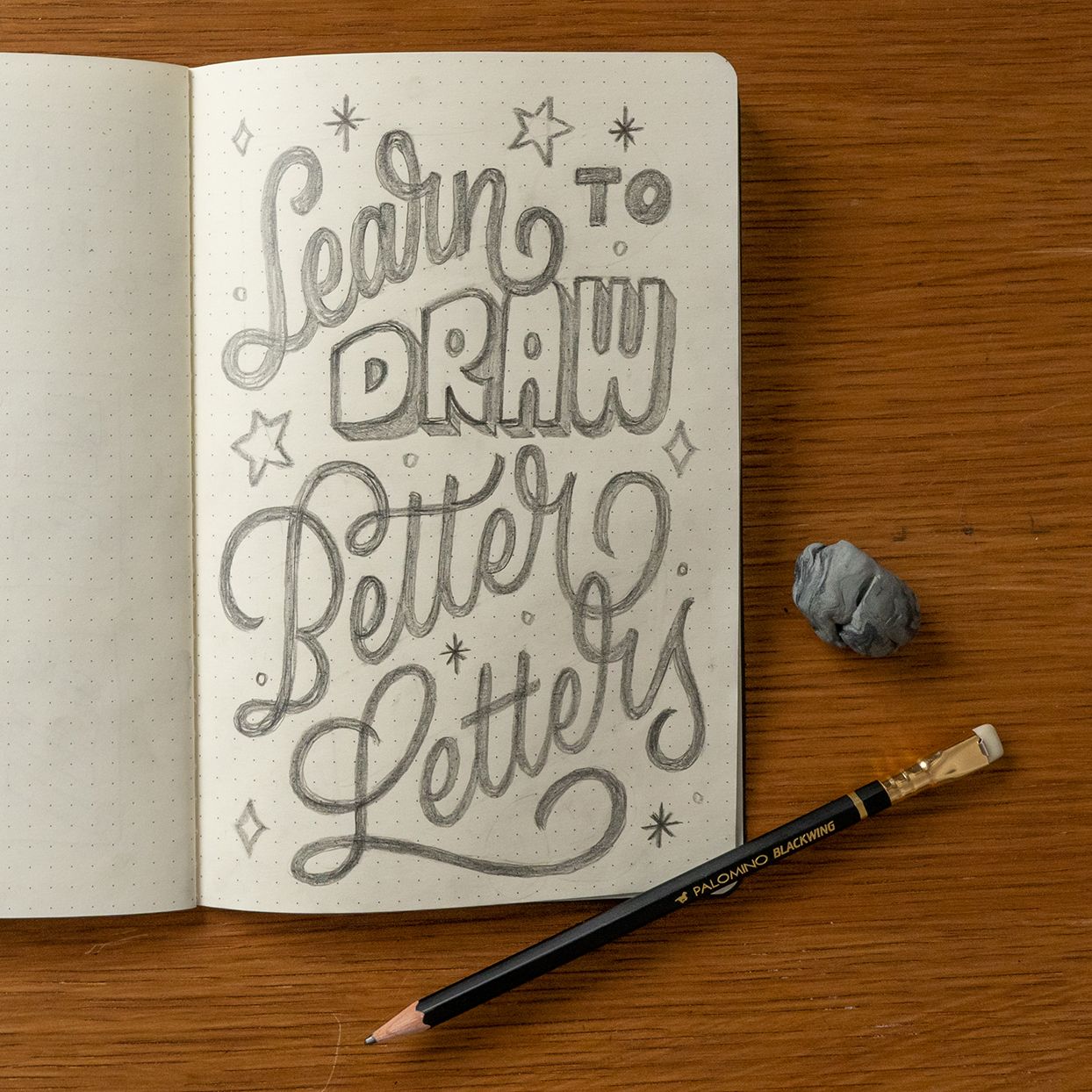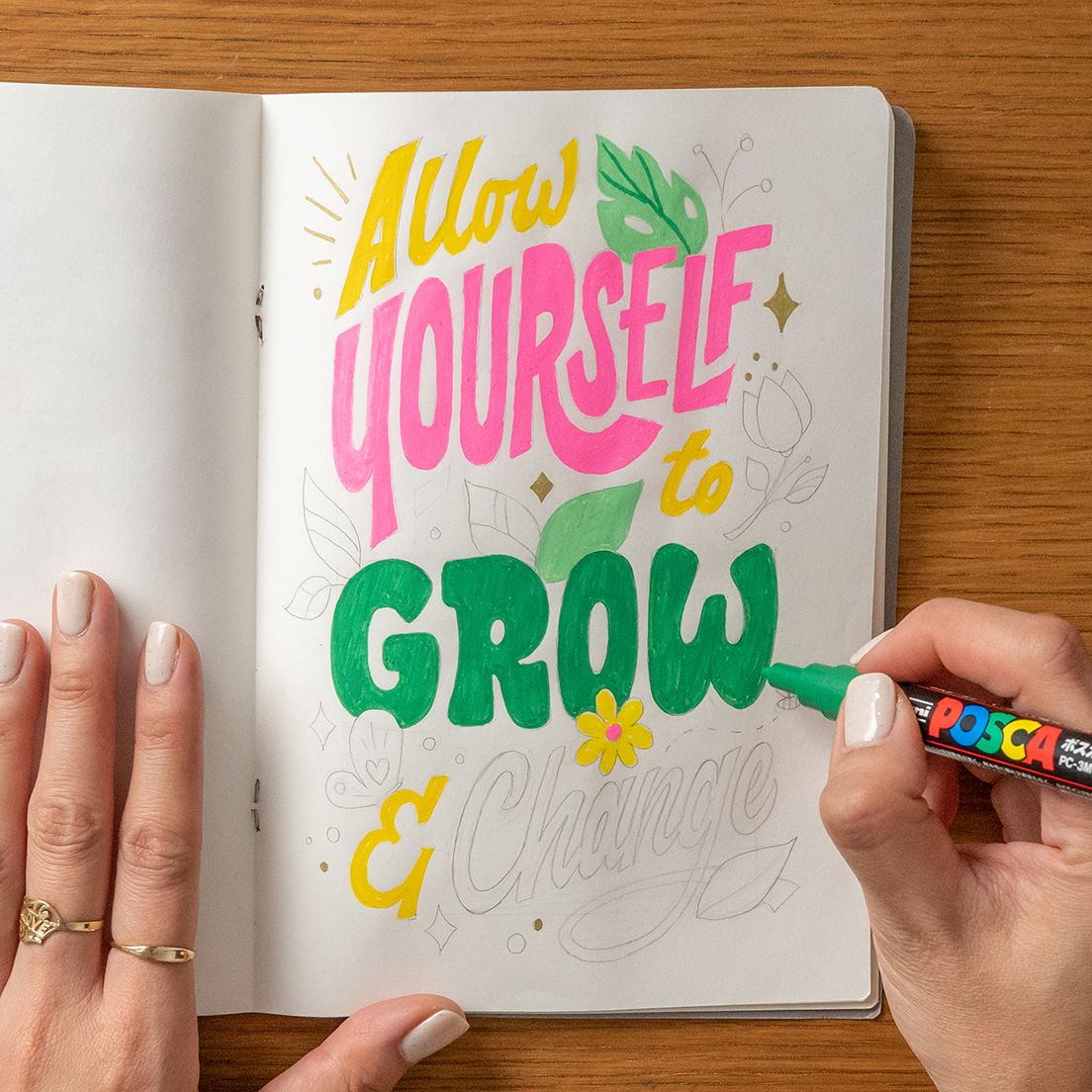
Abschlussprojekt – Typografie-Skizzenbuch: Buchstaben mit Stil zeichnen
Final Project – Typography Sketchbook: Drawing Letters with Style
von Joanna Muñoz @winkandwonder
Ihr habt meinen kreativen Prozess während des Kurses gesehen (Richtlinien verwenden, Gewicht hinzufügen usw.). Hier sind nun die fertigen Skizzen!
Du musst deine Stücke für dein Abschlussprojekt nicht unbedingt einfärben oder ausmalen, aber ich empfehle dir, es auszuprobieren, wenn du Zeit hast. Vielleicht gefällt dir der Prozess ja am Ende. :)
Ich persönlich liebe Bleistiftskizzen – es fühlt sich wirklich handgemacht an, wenn man die Graphitstiftmarkierungen auf der Seite sehen kann.
You saw my creative process during the course (using guidelines, adding weight, etc.). Now here are the finalized sketches!
You don't have to ink or color your pieces for your final project, but I do suggest you try and experiment when you have time. You might end up loving the process. :)
I personally love pencil sketches – it really feels handmade when you can see the graphite pencil markings on the page.
Eine der wichtigsten Aufgaben eines Lettering-Künstlers besteht darin, die eigene Arbeit zu kritisieren.
Im Nachhinein hätte ich die Linienstärke in „Better Letters“ dicker machen sollen, damit sie zu „Learn“ passt. Die obere Hälfte der Seite fühlt sich schwerer an als die untere, und der untere Text ist das, was wir ursprünglich hervorheben wollten!
Profi-Tipp: Wenn Sie etwas Abstand von Ihrem Stück gewinnen und die Augen zusammenkneifen, können Sie kleinere Details erkennen und anpassen.
Das Erfassen kleiner Details wie dieser wird Ihnen dabei helfen, Ihre Schriftzüge aufzuwerten. :)
One of the important things to do as a lettering artist is to critique your own work.
In hindsight, I should've thickened the line weight in "Better Letters" to match "Learn." The top half of the page feels heavier than the bottom, and the bottom text is what we initially wanted to stand out!
Protip: Stepping away from your piece and squinting your eyes can help you notice smaller details to adjust.
Catching little details like this are what will help you elevate your lettering pieces. :)
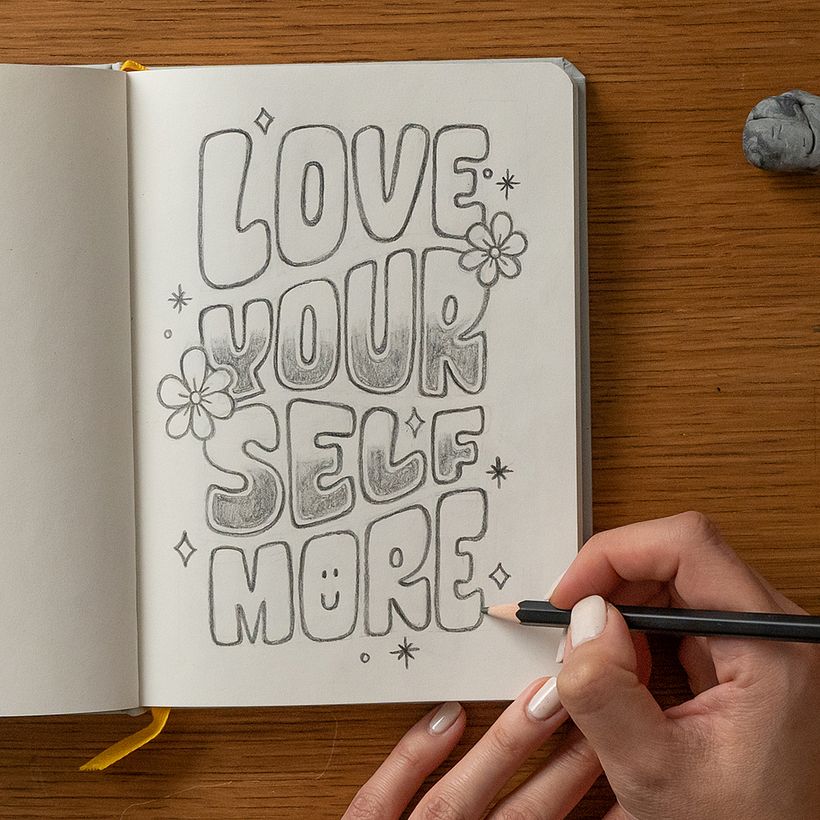
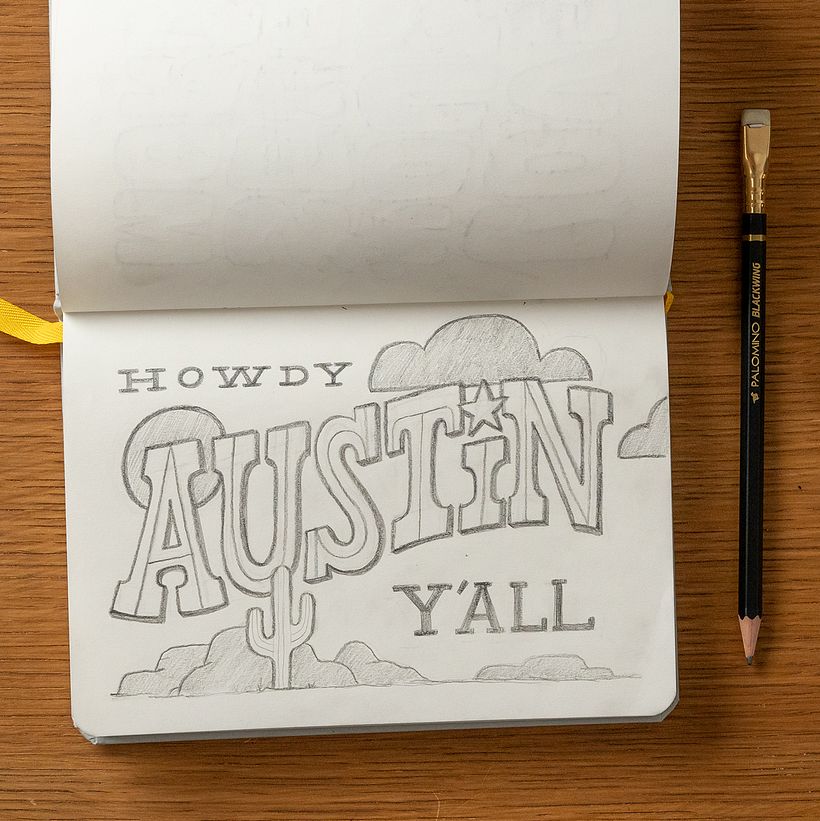
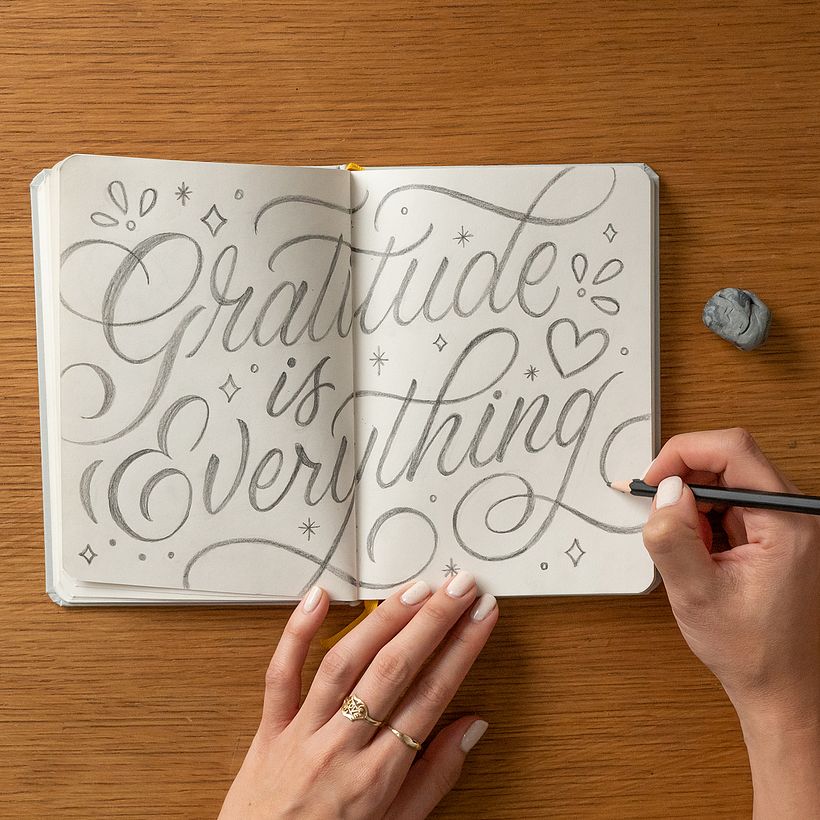
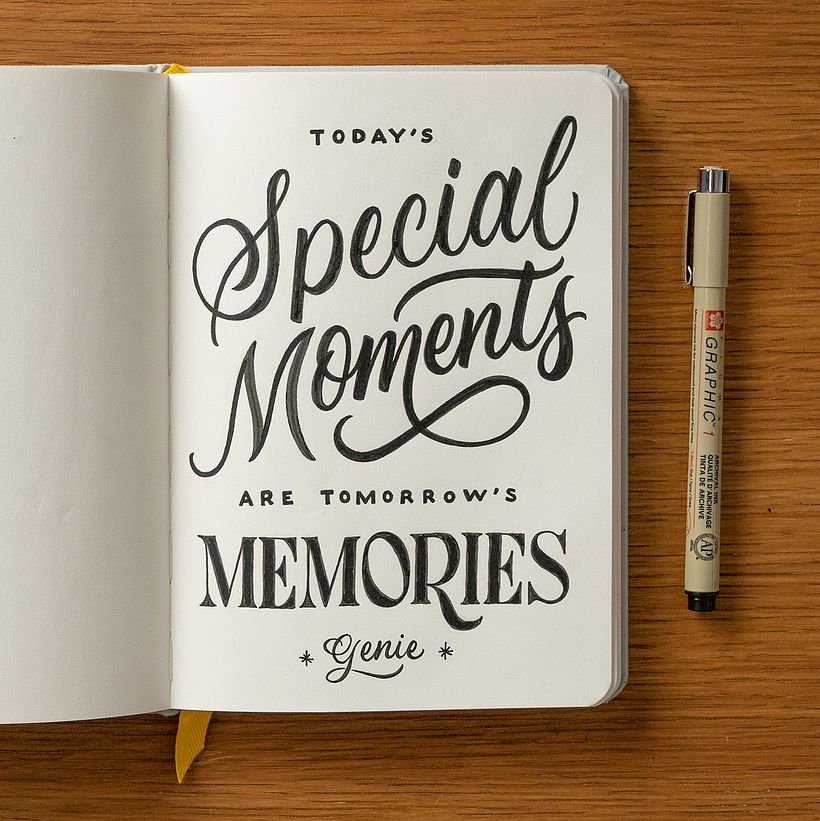
Ich habe diese Skizzenbuchversion als Ausgangspunkt verwendet und das kolorierte Werk schließlich auf meinem iPad fertiggestellt. Du kannst aber auch gerne die Richtung wechseln, wenn du möchtest! Denk daran: Dein Skizzenbuch ist ein Ort für Ideen und Inspiration – nutze es, wie du es für richtig hältst. :)
I used this sketchbook version as a starting point and ended up finishing the colored piece on my iPad. It's okay to switch gears if you want! Remember that your sketchbook is a place for ideation and inspiration – use it however you see fit. :)